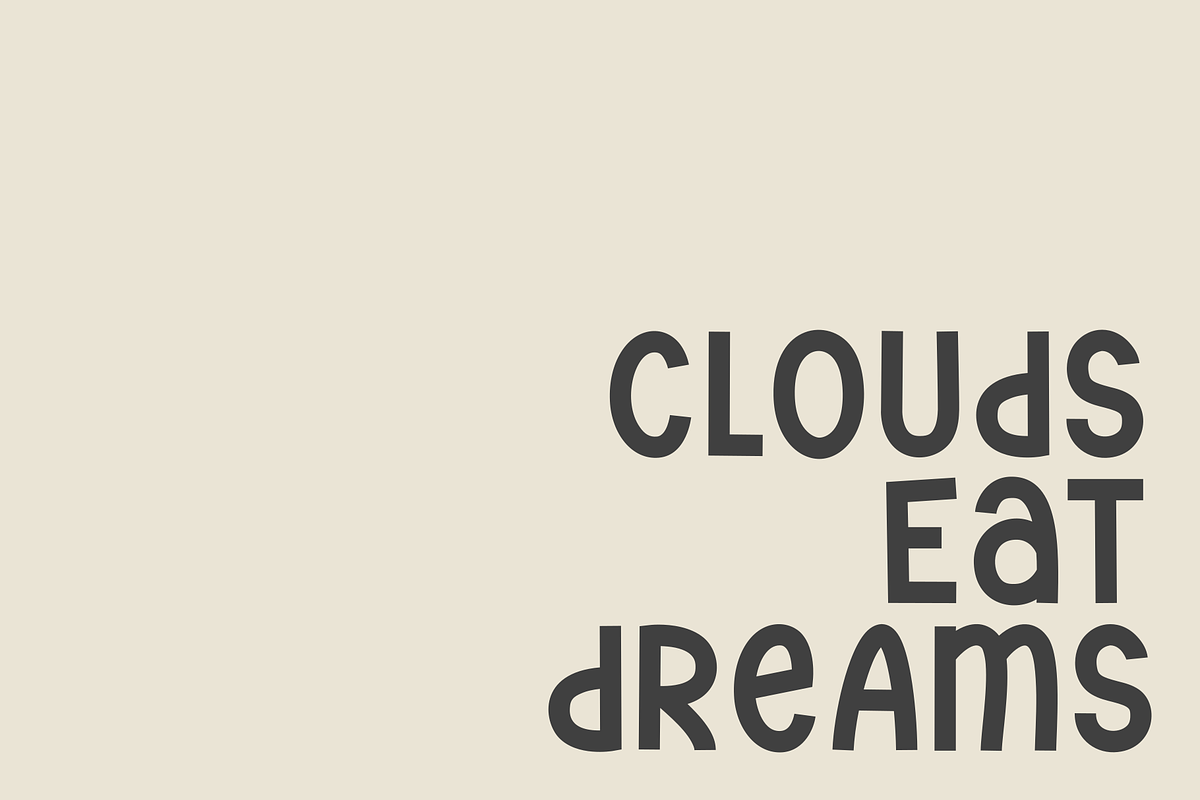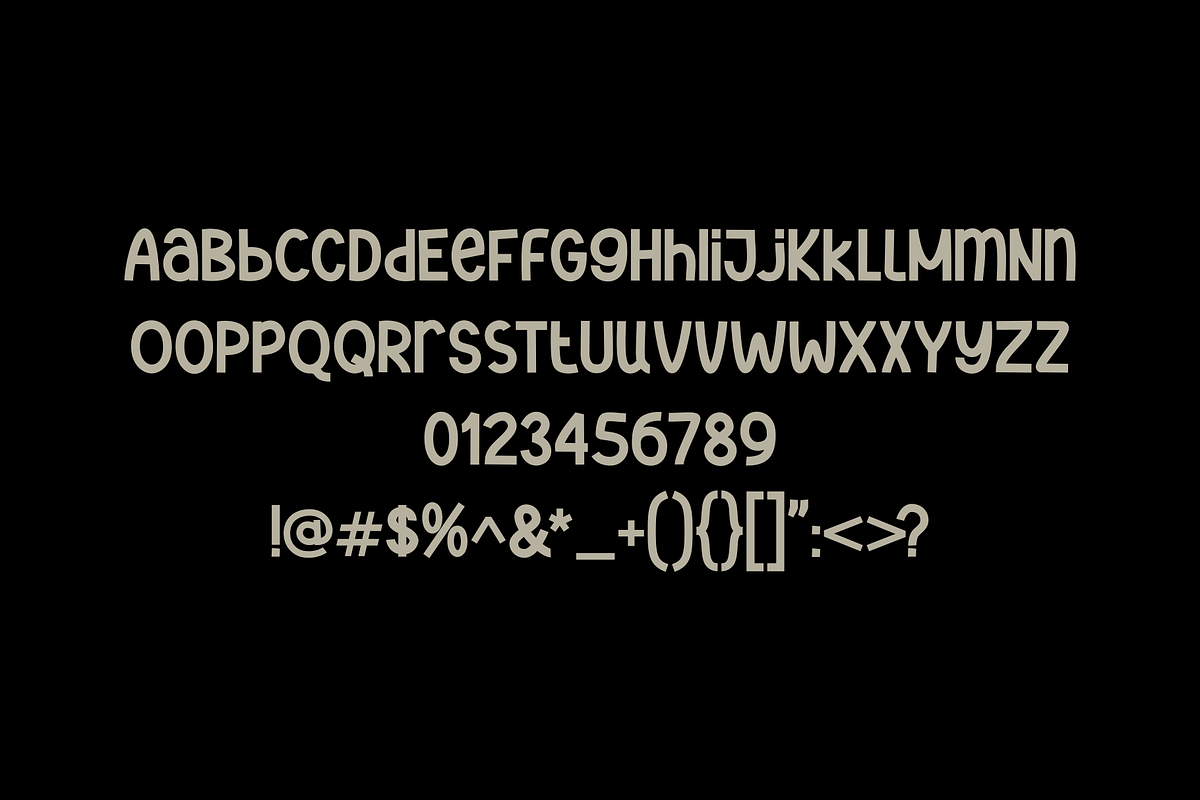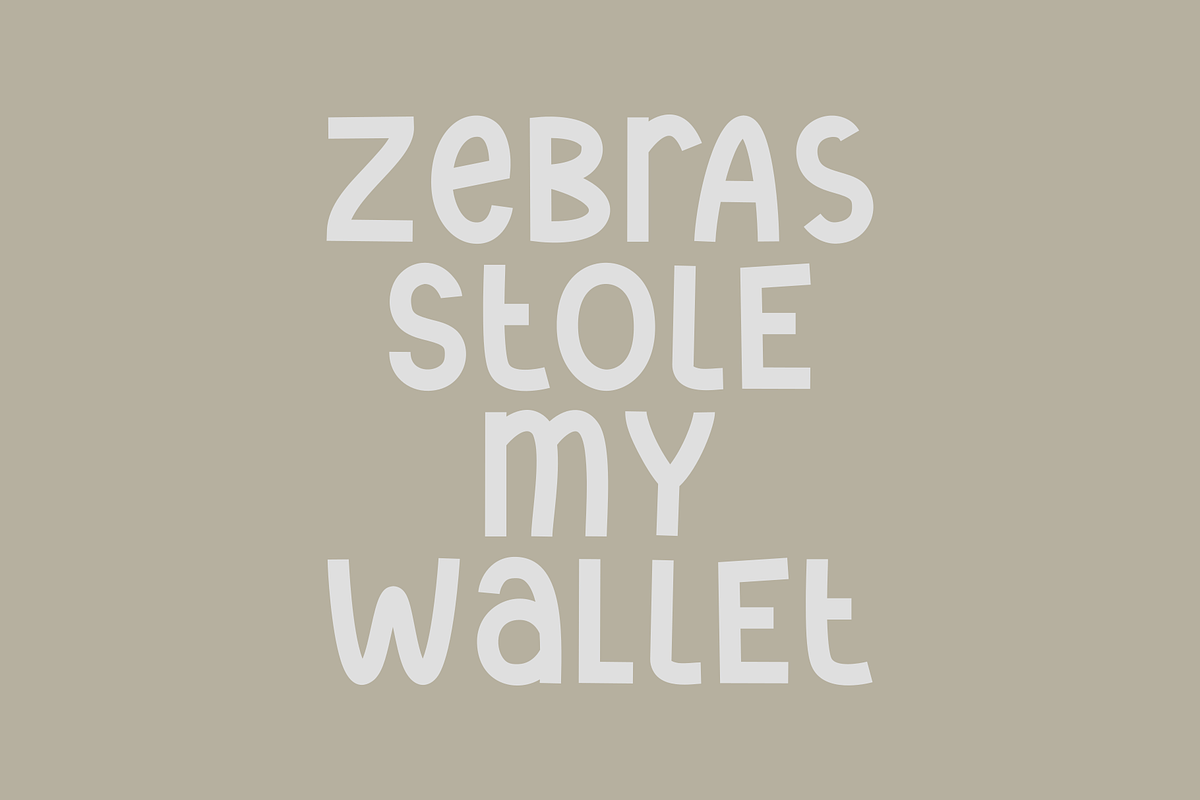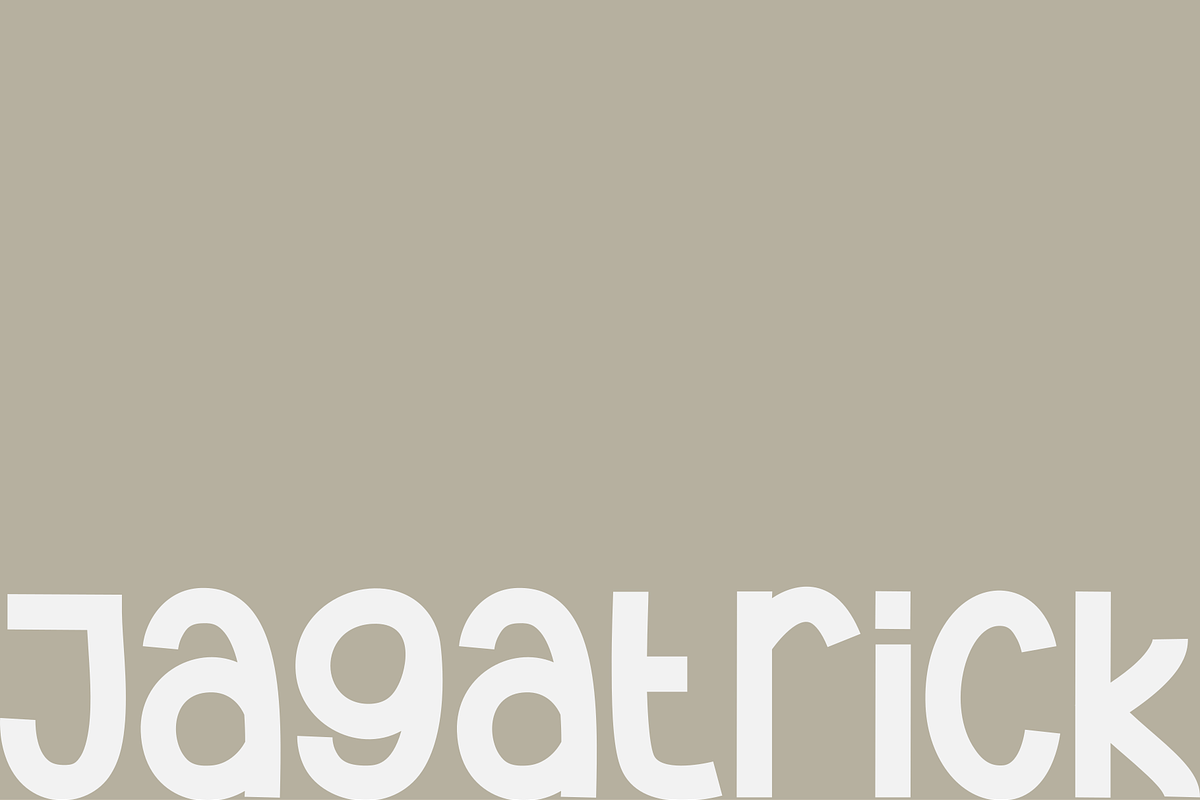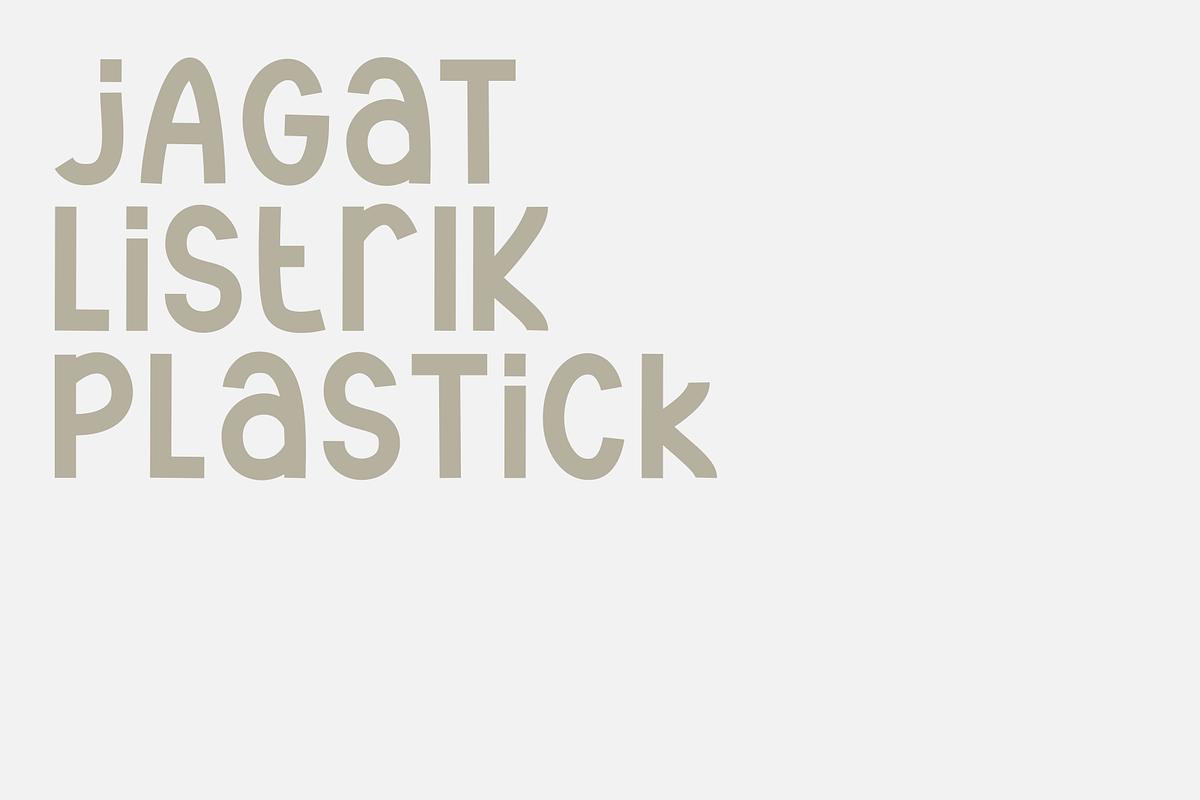
Jagatrick
Meet Jagatrick—a dynamic display font that blends geometric boldness with quirky character alternates. Its condensed yet fluid style adds a futuristic edge to headlines, logos, and posters. Play with unexpected uppercase-lowercase contrasts for a touch of rebellion, or leverage stylized symbols and numbers to elevate tech-inspired designs.
Whether it’s branding, packaging, or urban art, Jagatrick turns words into visual statements—sharp, versatile, and dripping with attitude.